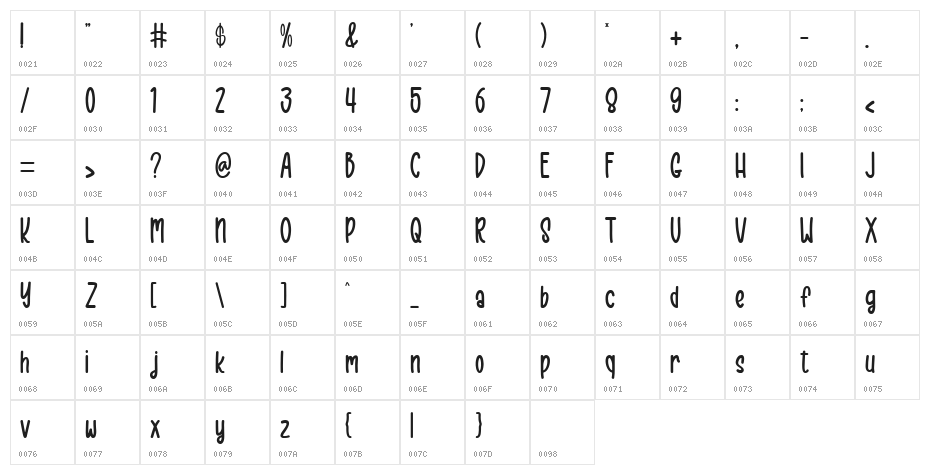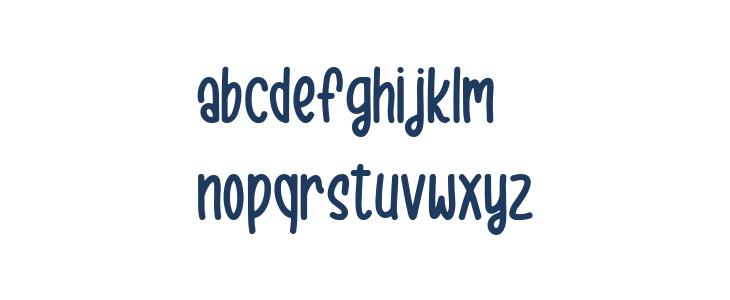
One Shot Font
One Shot Description
This font features a playful and casual handwritten style, characterized by its rounded and smooth letterforms. The strokes are consistent in thickness, giving it a uniform appearance that enhances readability. The uppercase letters are slightly taller than the lowercase, adding a touch of whimsy. The numerals and special characters maintain the same playful aesthetic, making the font versatile for various uses. Its informal style is perfect for projects that require a friendly and approachable look.
| Use Case | Headlines, Logos, Informal text |
| Proposed Projects | Ideal for greeting cards, children's books, playful branding, and social media graphics. |